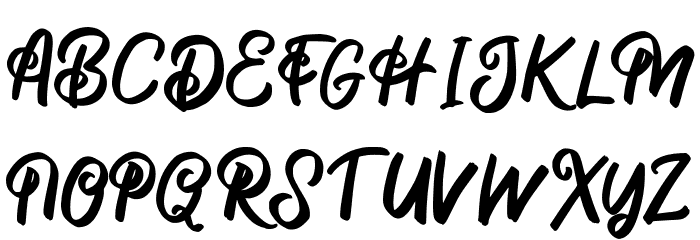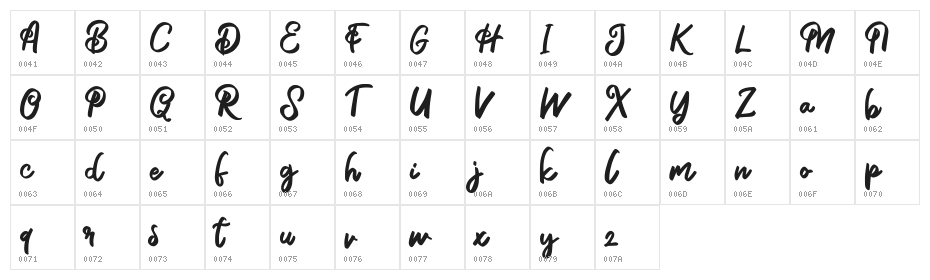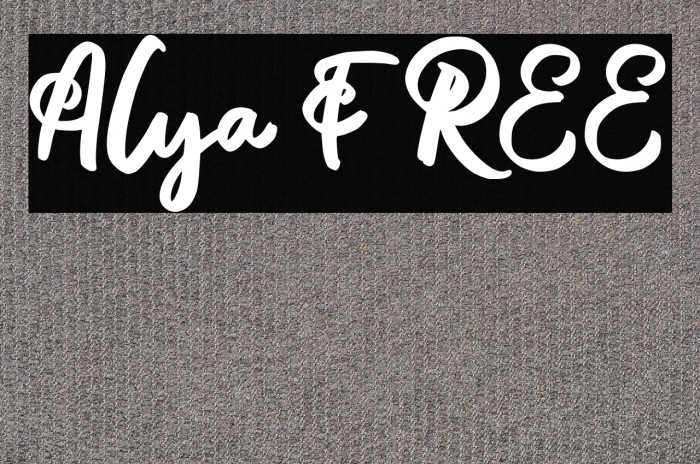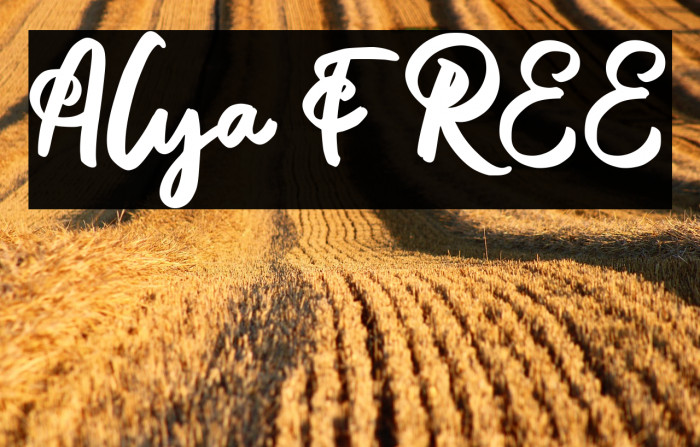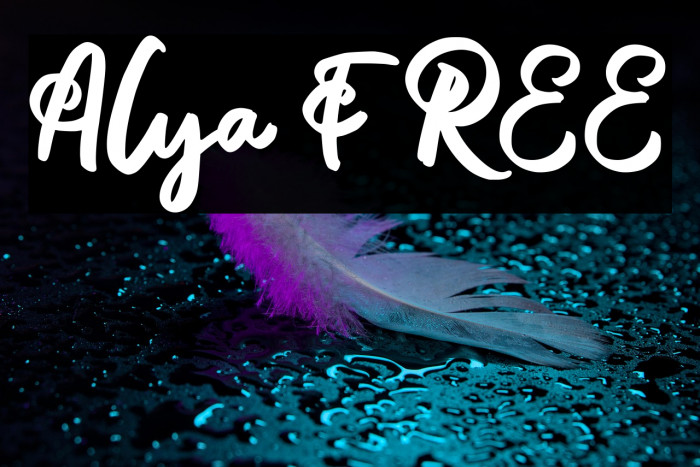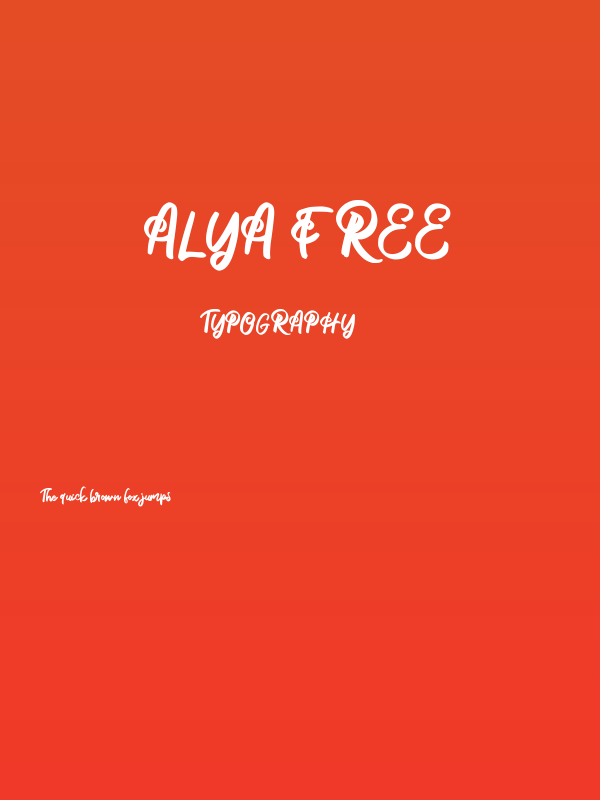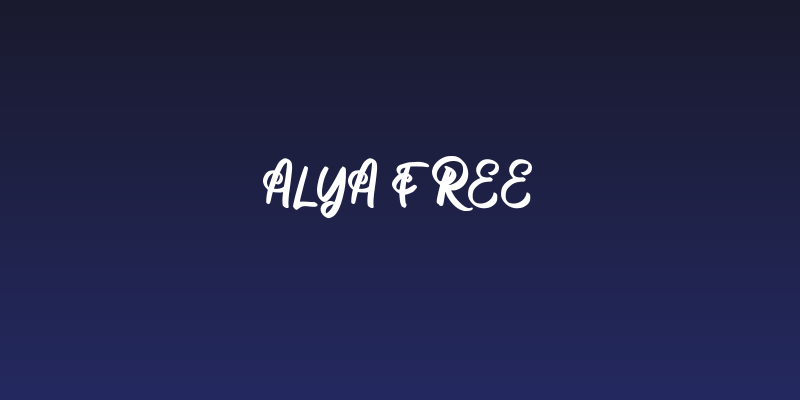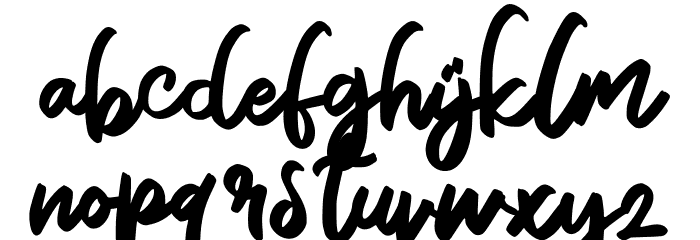
Alya FREE Font
Alya FREE Description
This font features a bold and expressive script style with a modern flair. The characters are interconnected, creating a flowing and dynamic appearance. The uppercase letters are slightly more structured, while the lowercase letters exhibit a more casual and handwritten feel. The strokes are thick and consistent, providing a strong visual impact. The overall design is playful yet elegant, making it suitable for a variety of creative projects. The font includes a full set of uppercase and lowercase letters, numbers, and special characters, ensuring versatility in its application.